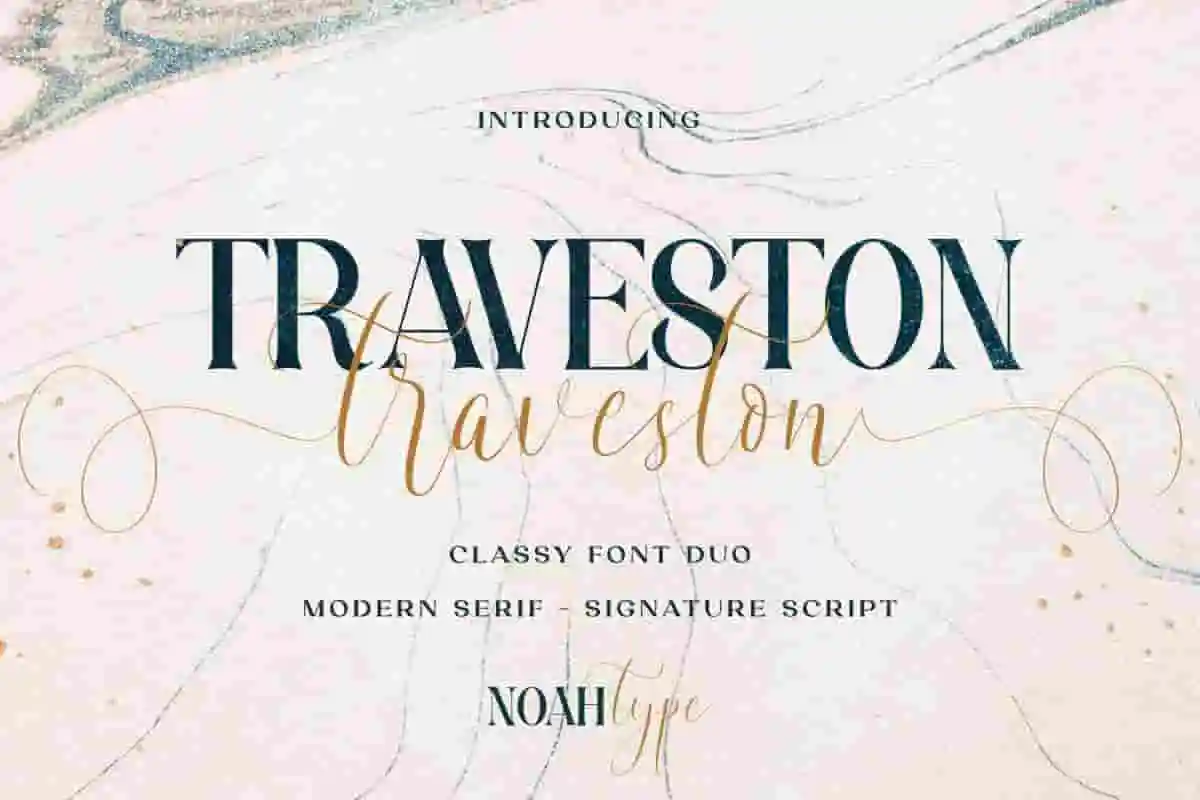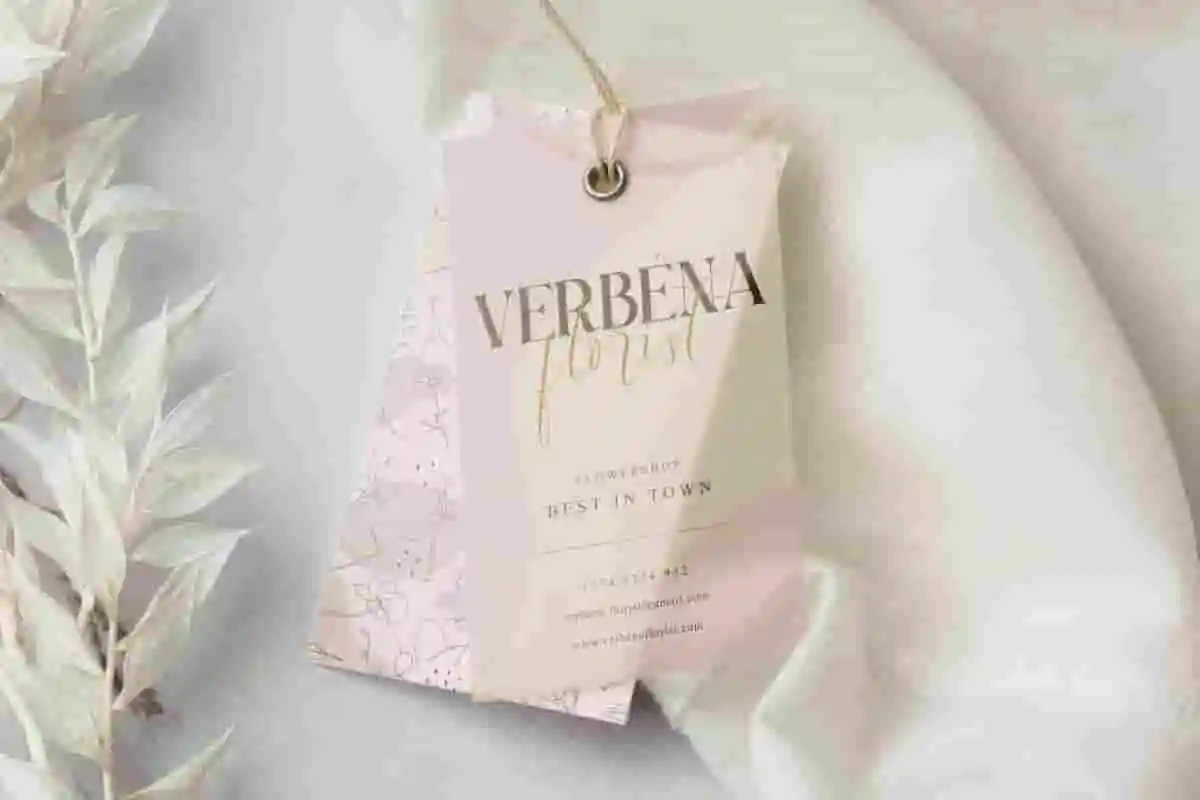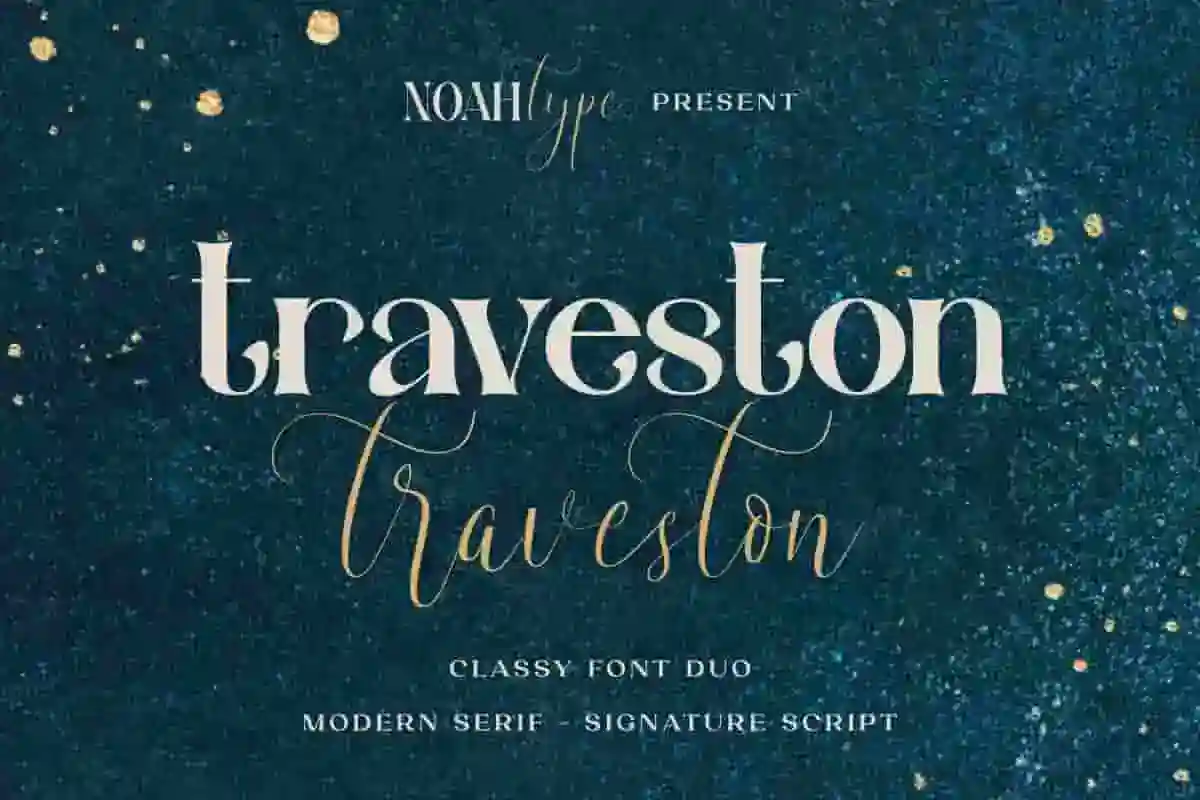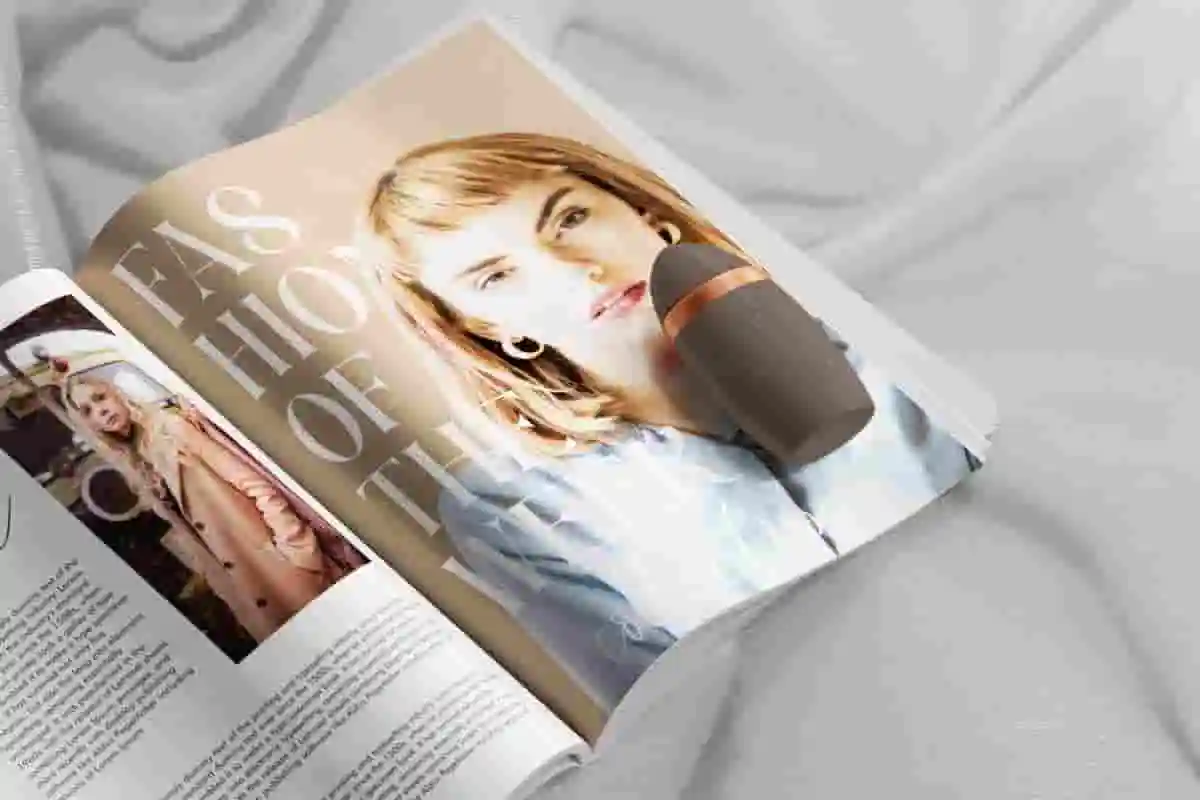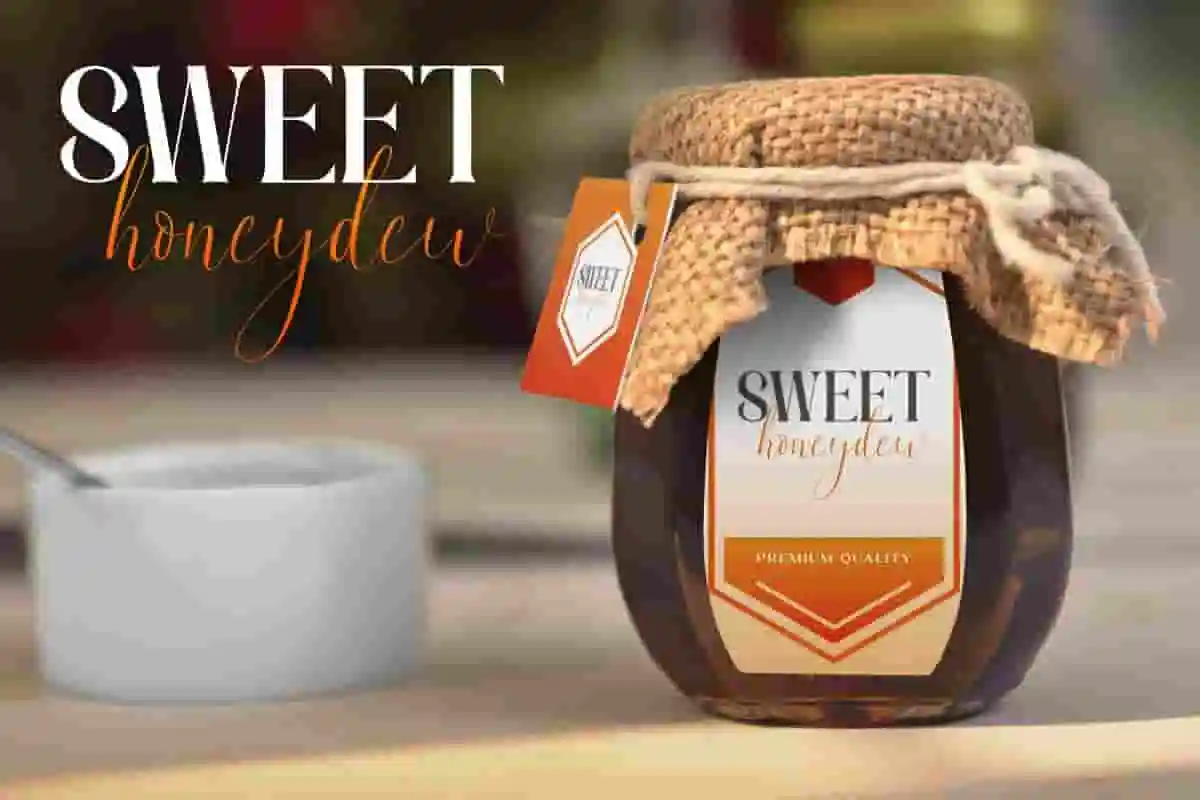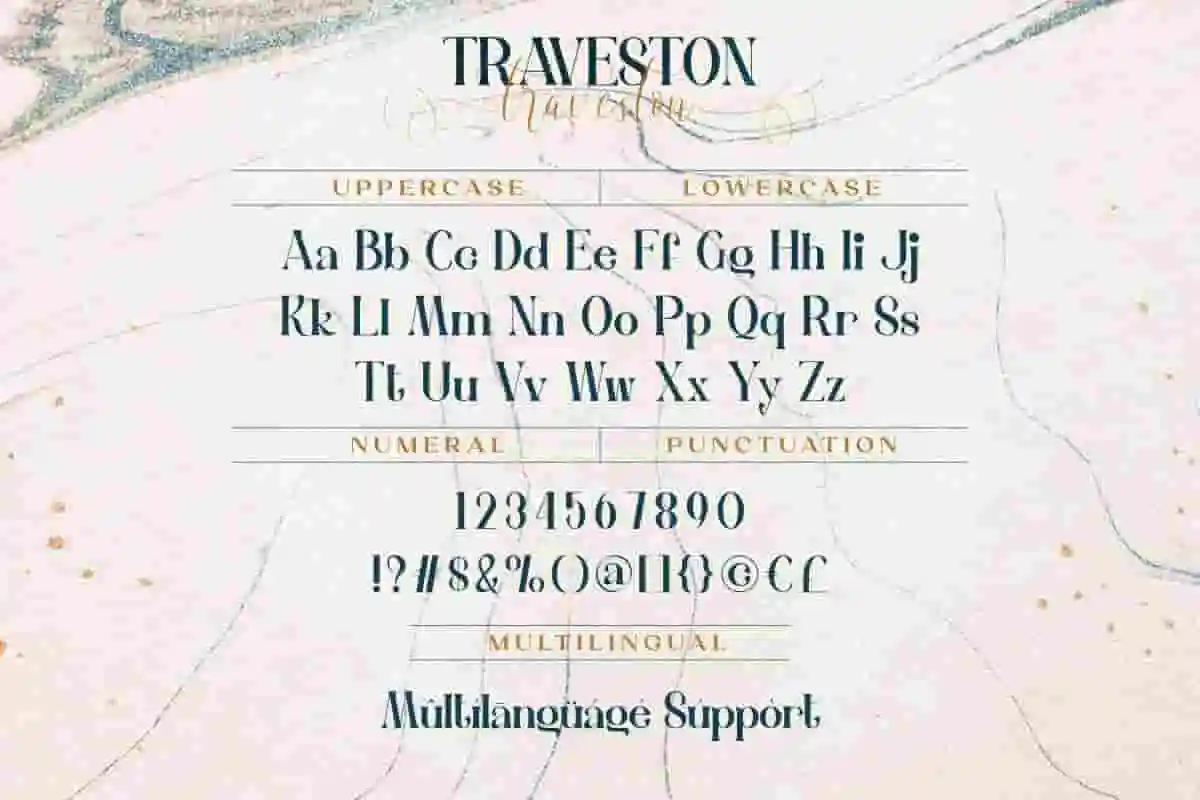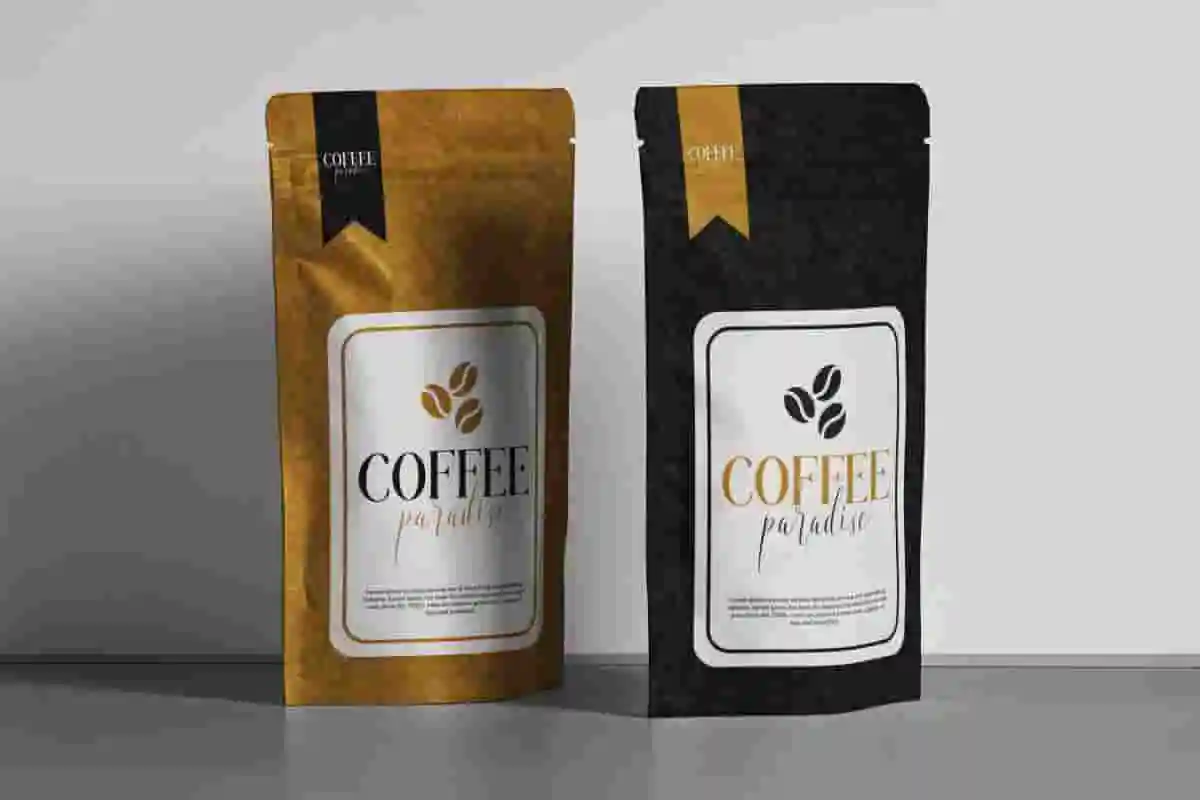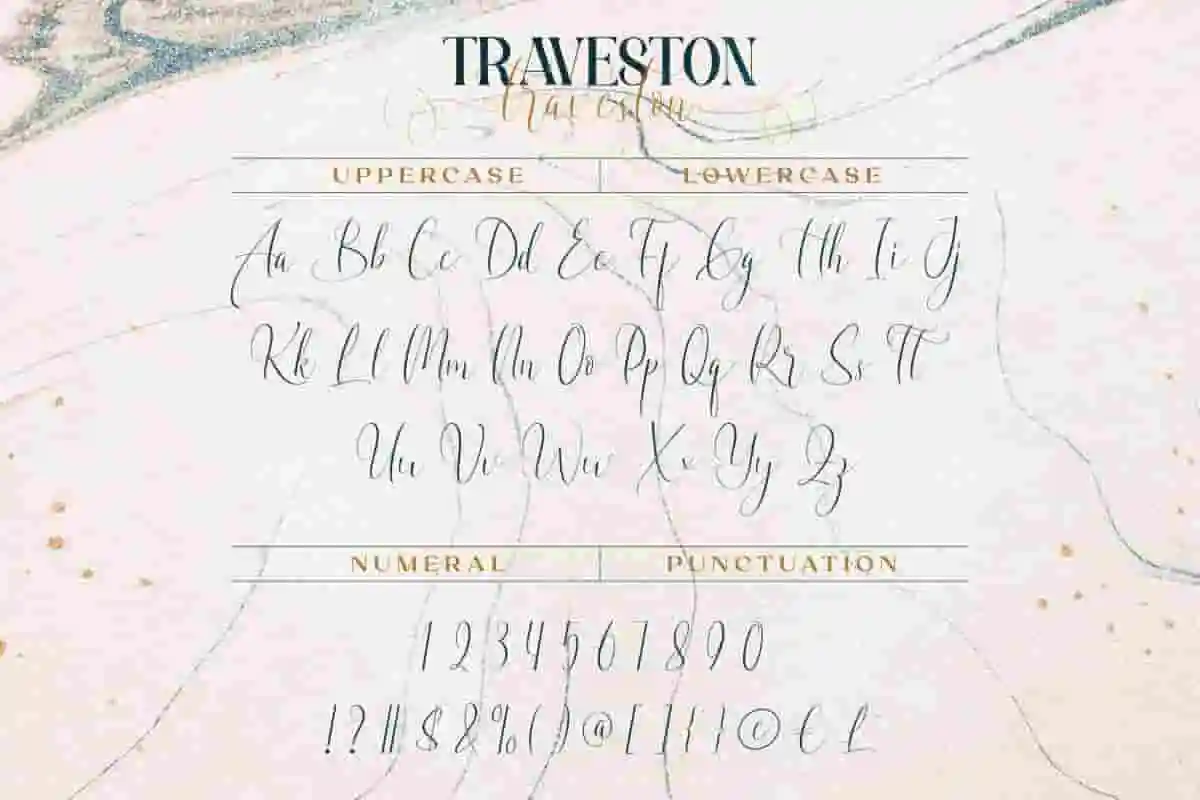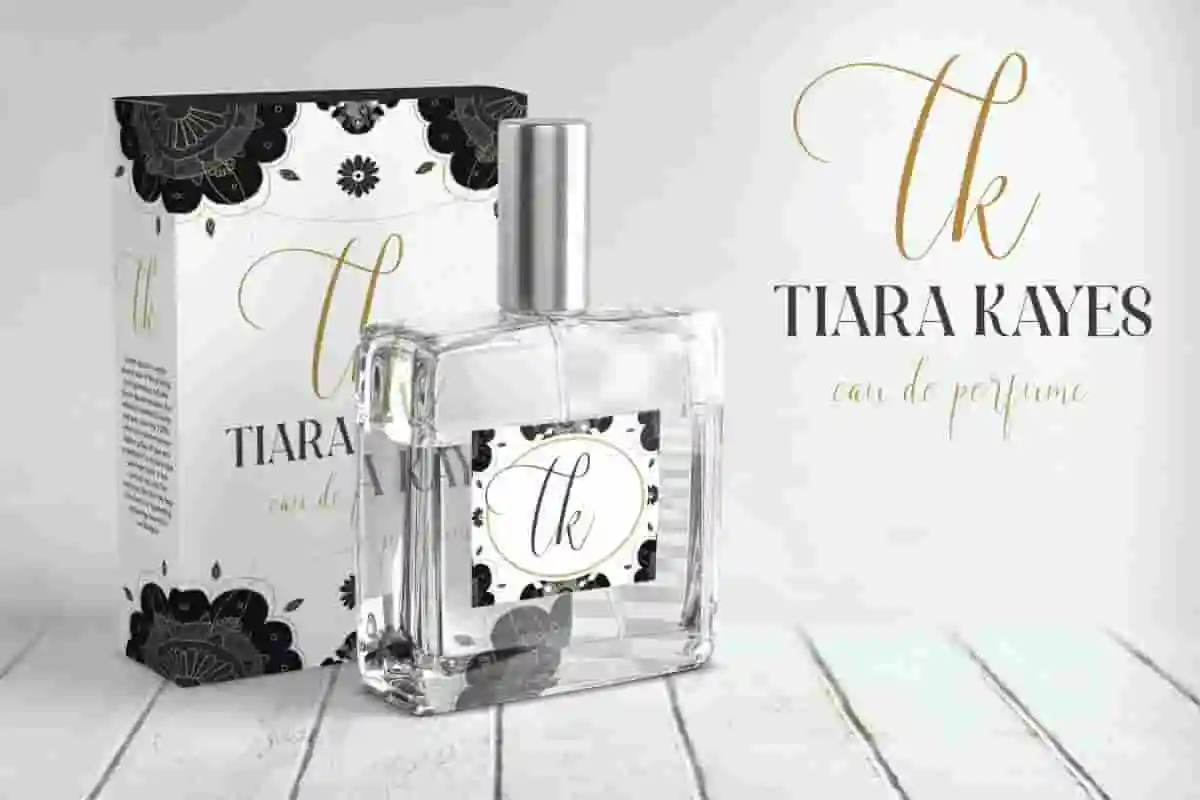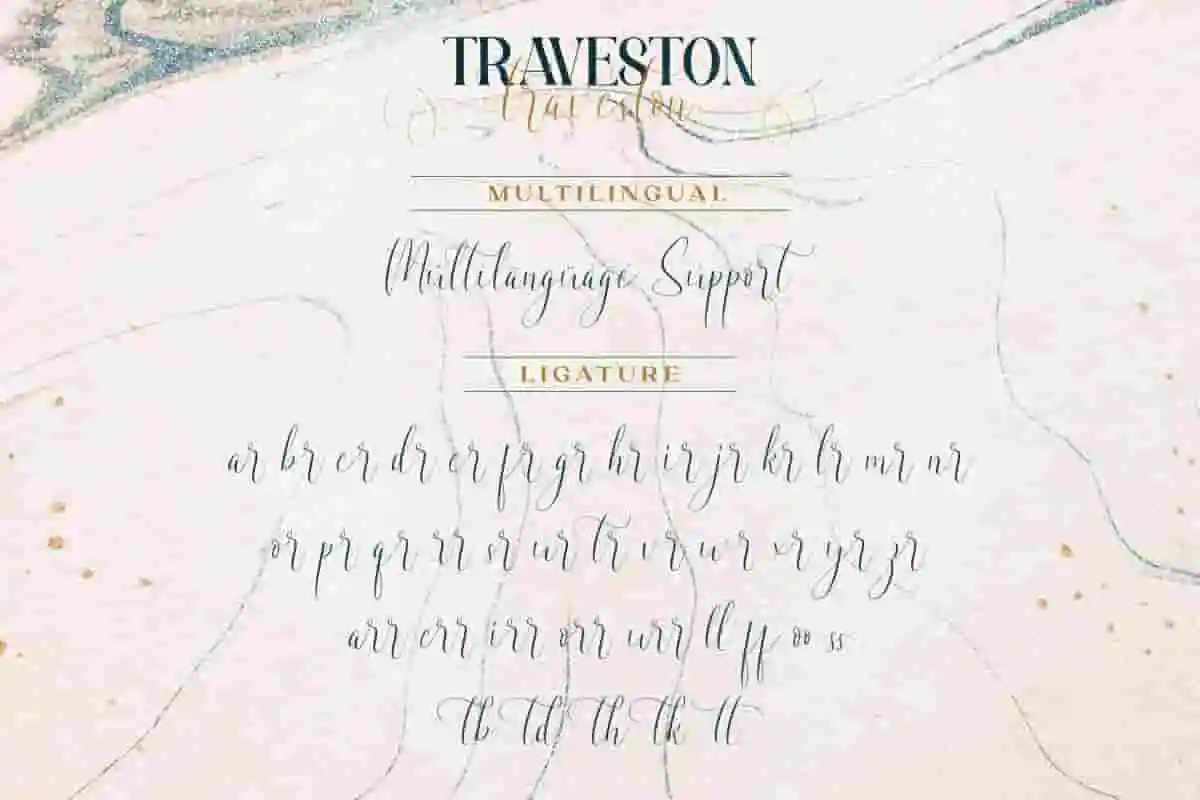
Traveston Font
Traveston Font is gorgeous font duo. It’s a perfect match of two fonts, consist of modern serif with signature script created by NoahType. This typeface brings a classy with elegant touch and easy to read. It will be amazing for any industry: café, cosmetic, fashion, florist, food brand, publishing, wedding, writer, and more.
Traveston Font includes full set of Uppercase and Lowercase Basic Characters, Numerals and Punctuation. Also it contains ligature characters to make your designs have an awesome look and perfect for many projects such as billboard, company sign, invitation, label, magazine design, product packaging, quote, stationery, title, and any project that requires a stunning look!
Traveston Font supports multilingual languages (including multiple currency symbols) with a simple installation, also have ligature characters options that you can select and use to make it flawless. The font will be ready to use both on Windows machine or Mac. It work well on Adobe software such as Illustrator, Photoshop and several other software.